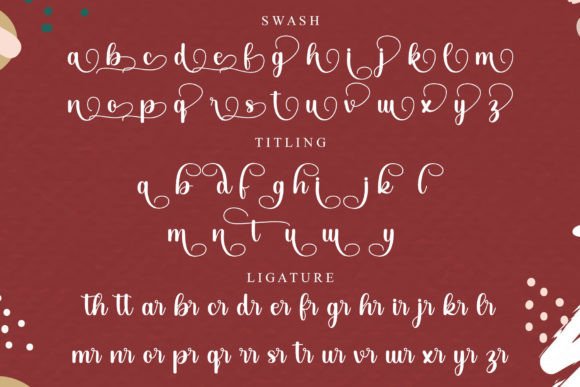
Christmas Beautiful Font
Christmas Beautiful Font is a modern calligraphy font. It has flowing letters that will give your designs a unique and sweet look with many lovely characters. Christmas Beautiful font is perfect; for logos, greeting cards, package design, brand identity, craft design, any DIY project, book titles, wedding invitations, packaging, and more any Christmas project.